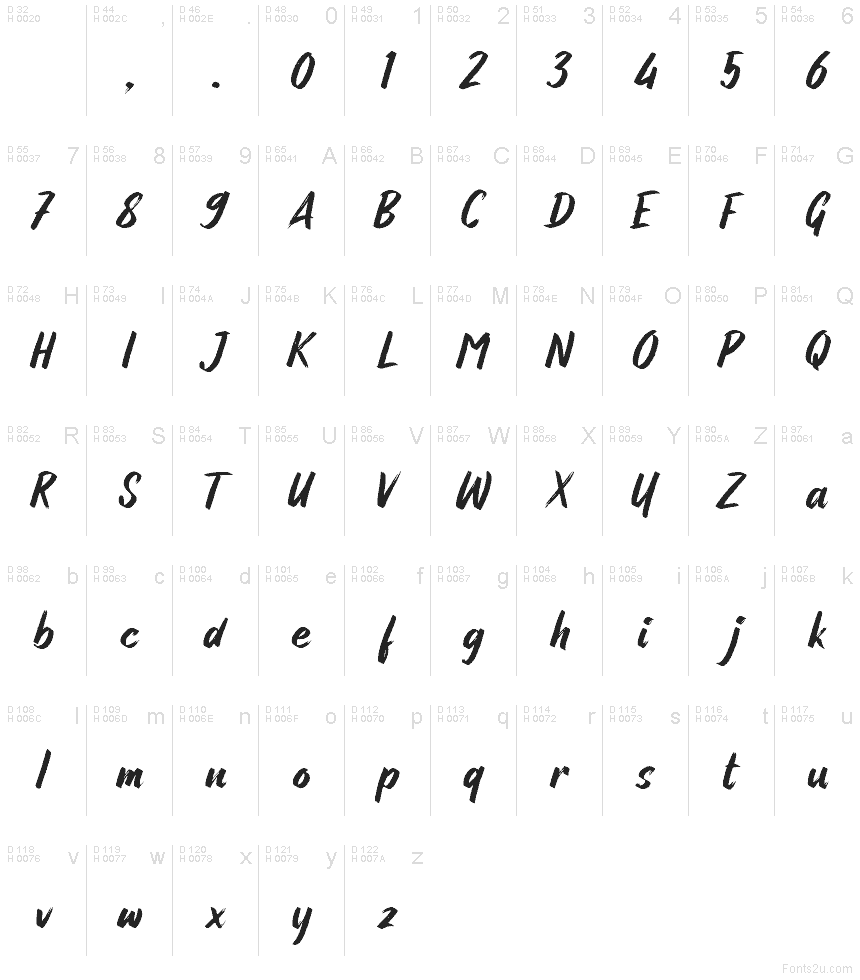
Naughty Klan font by Ikiiko Type, is a free brush script font with dynamic movements, an expressive personality, and a modern aesthetic. This typeface is the definition of casual sophistication reflected in designs that require a clean flow and fluid clarity. Use it for any project idea you might have as long as it engages its viewers.
Appeal to the audiences with logotypes and typography artwork pieces or pick Naughty Klan for both printed and digital platforms like websites/blogs/social media pages. Use this useful tool to design posters, magazine covers, T-shirt art, apparel designs, or branding identities where all your work can successfully combine authenticity with power.